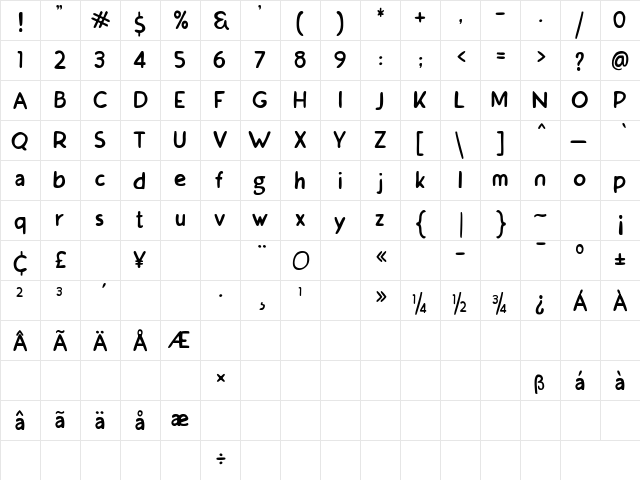
Malvinas Regular Regular
| Designer | Nico Muslib |
Design Context for Malvinas Regular Typeface
Malvinas Regular offers clean, dependable letterforms without strong stylistic allegiance, making it a practical choice for designers who need flexibility.